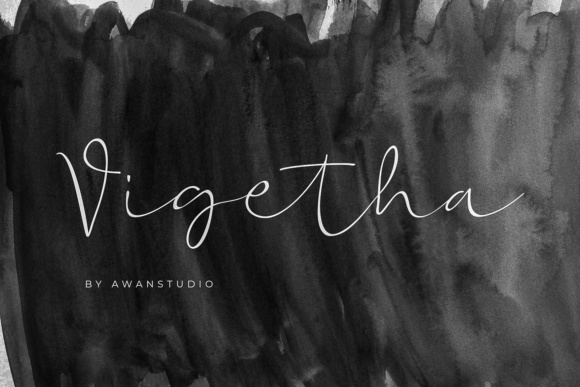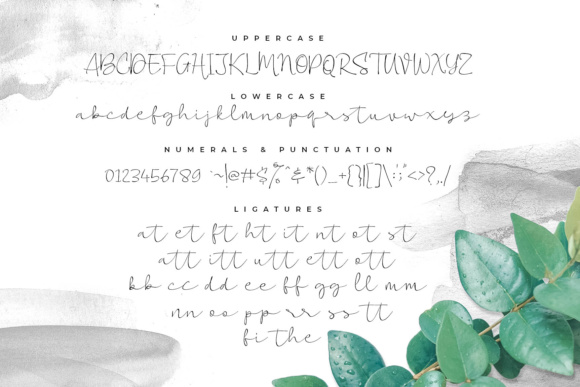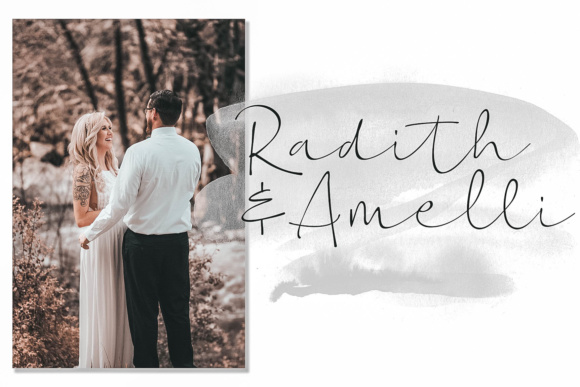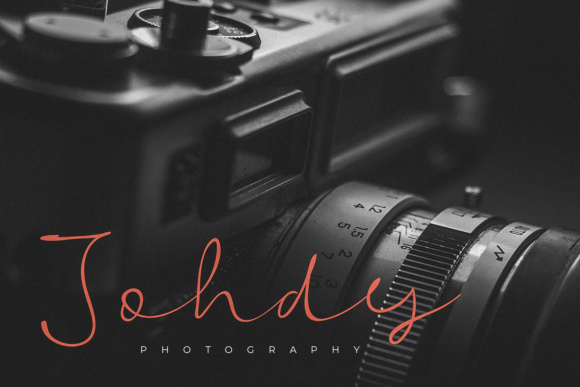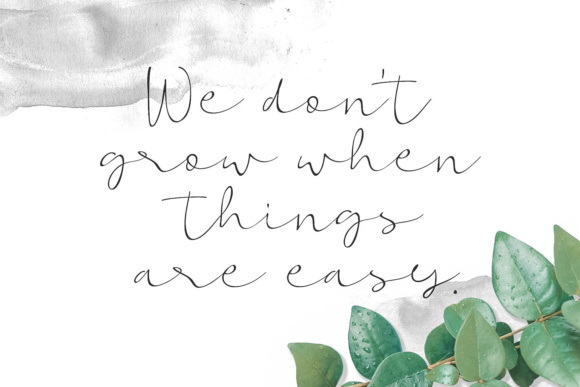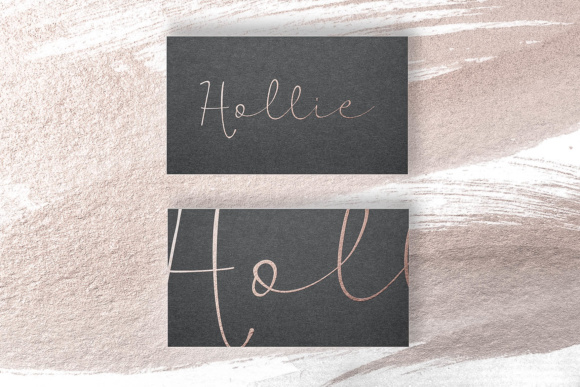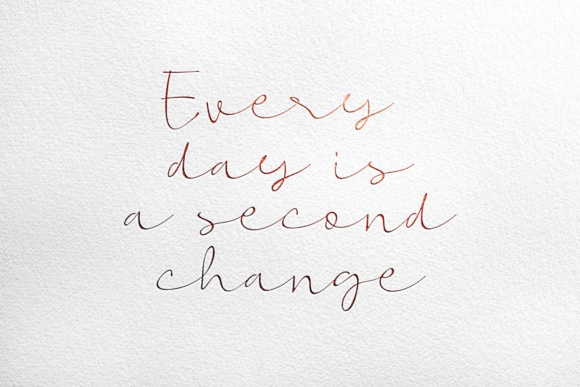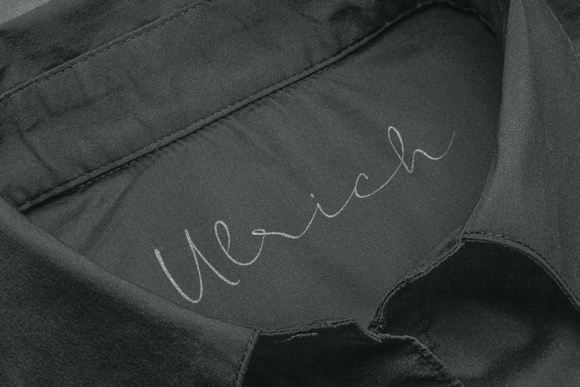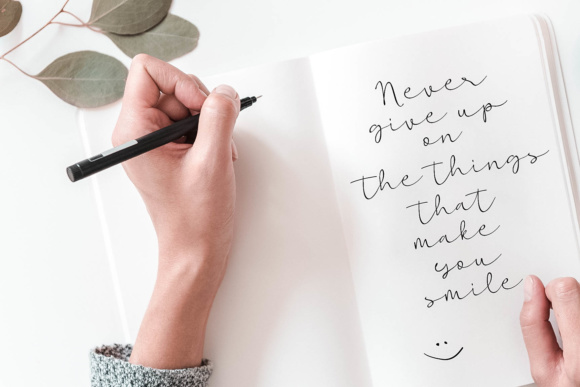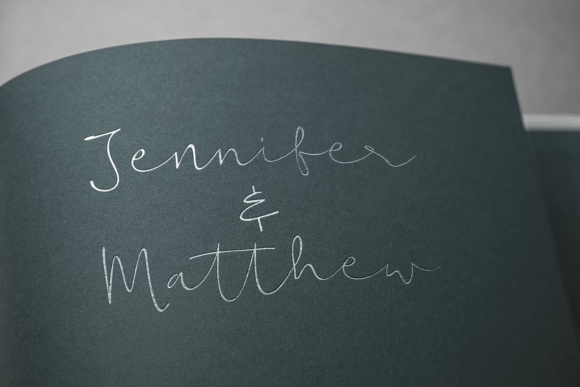
Vigetha Font
About Vigetha Font
Vigetha is a gorgeous signature font, ideal for giving your designs a quick and easy feel. This spacious, wide script looks stellar in editorial works and can add a ton of fashionable presence to your print work as well.